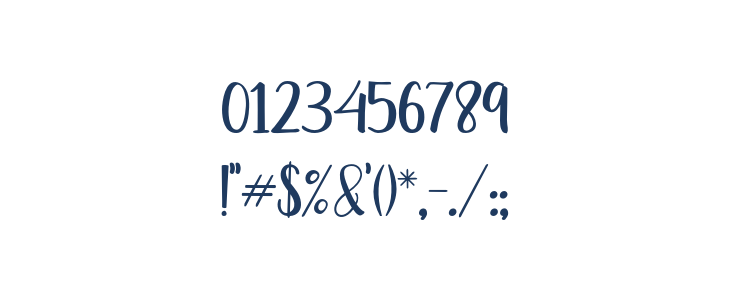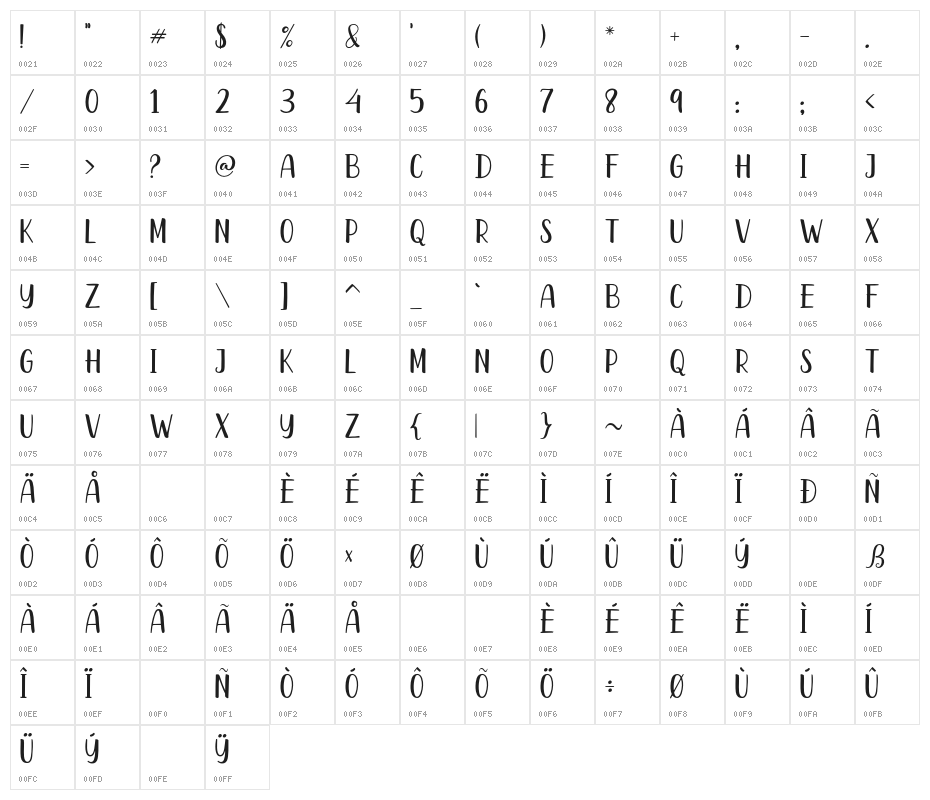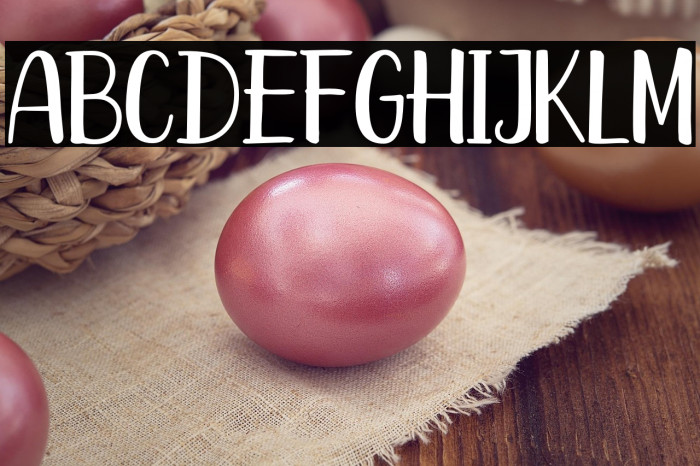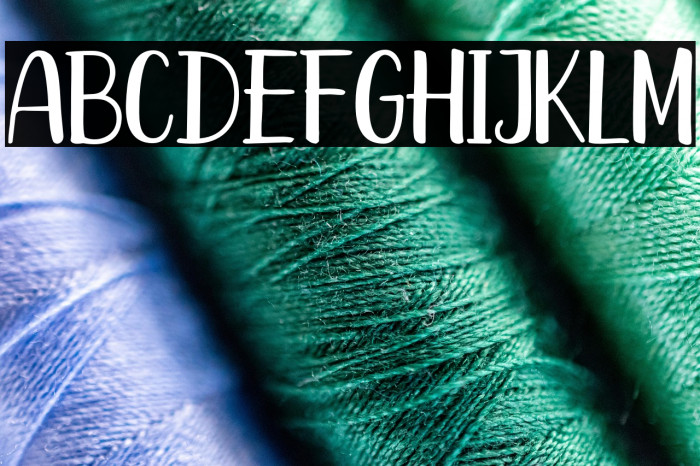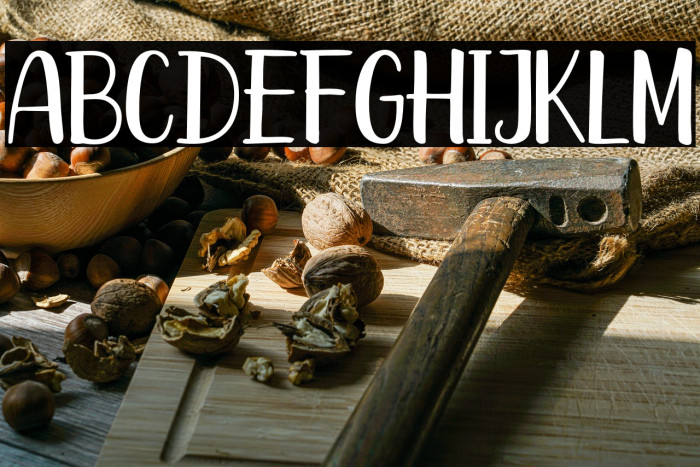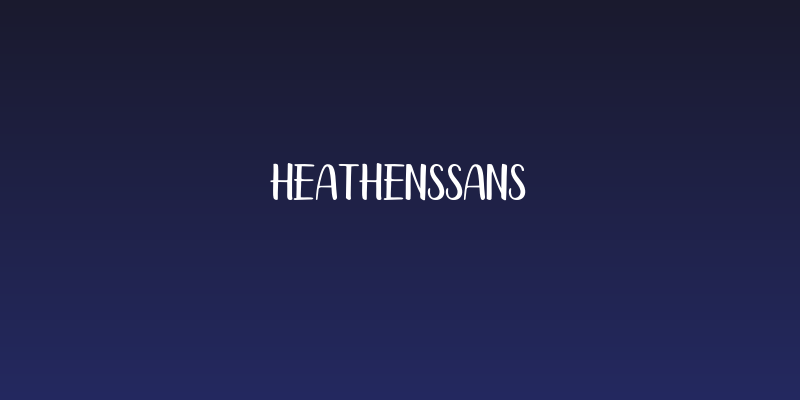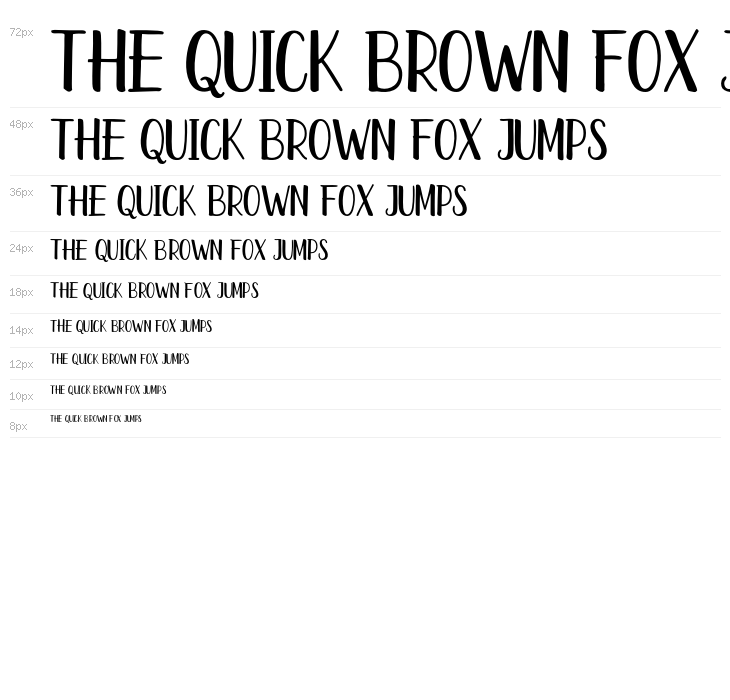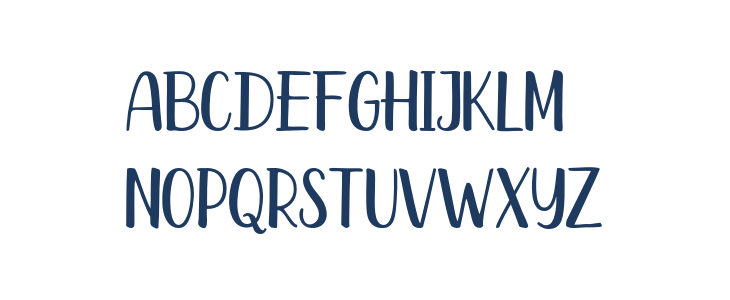
HeathensSans Font
HeathensSans Description
This font features a playful and artistic style with a handwritten appearance. The characters are bold and slightly irregular, giving them a lively and dynamic feel. The uppercase and lowercase letters maintain a consistent flow, with rounded edges and a slight slant that adds to the casual and approachable aesthetic. The numbers and special characters follow the same design principles, ensuring uniformity across the typeface. This font is ideal for projects that require a personal touch or a creative flair, such as invitations, posters, or branding materials.